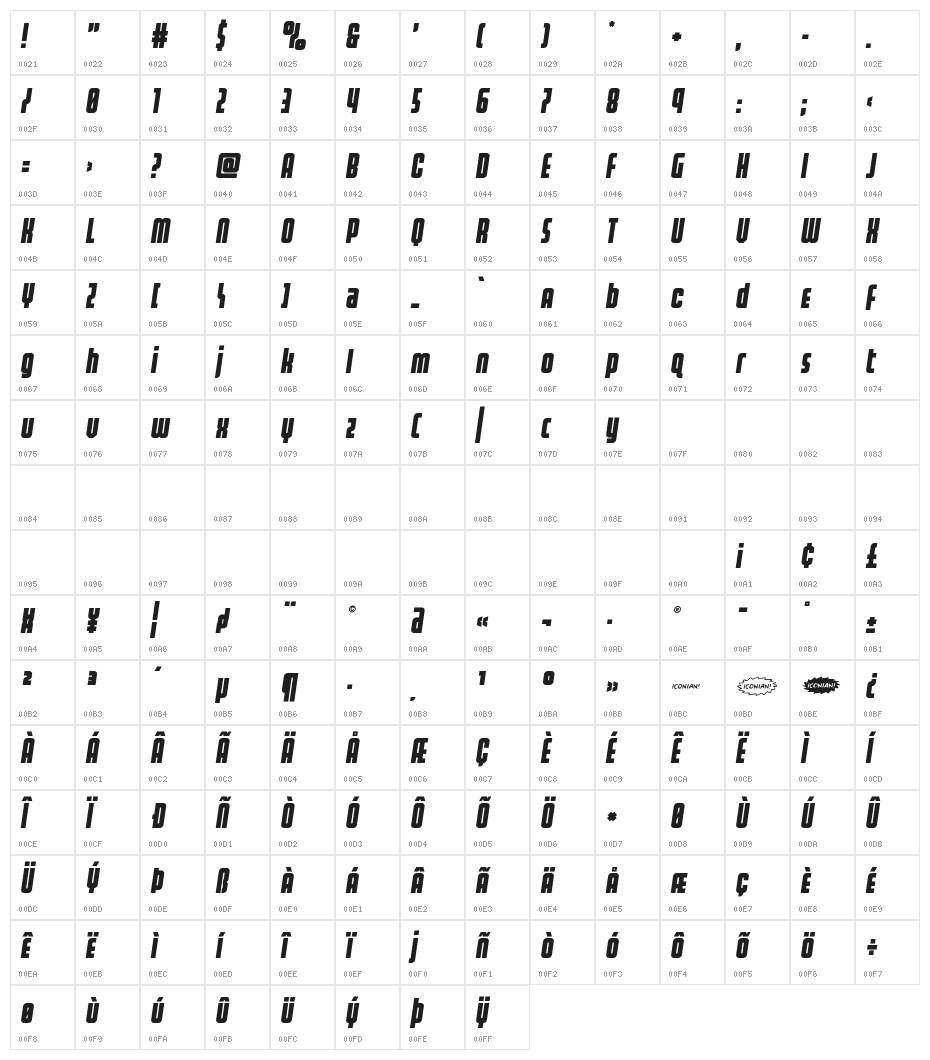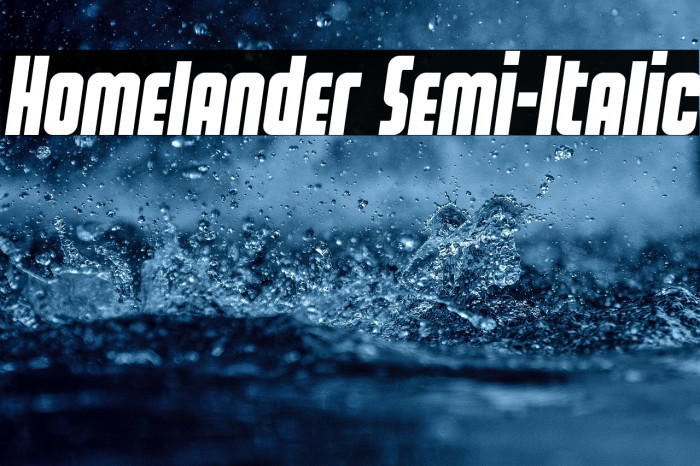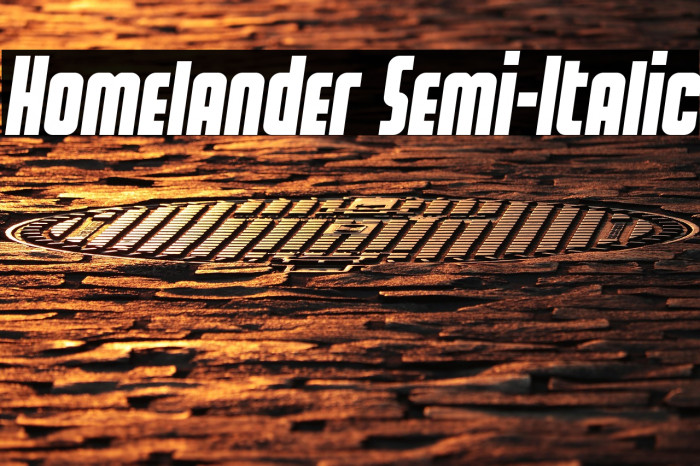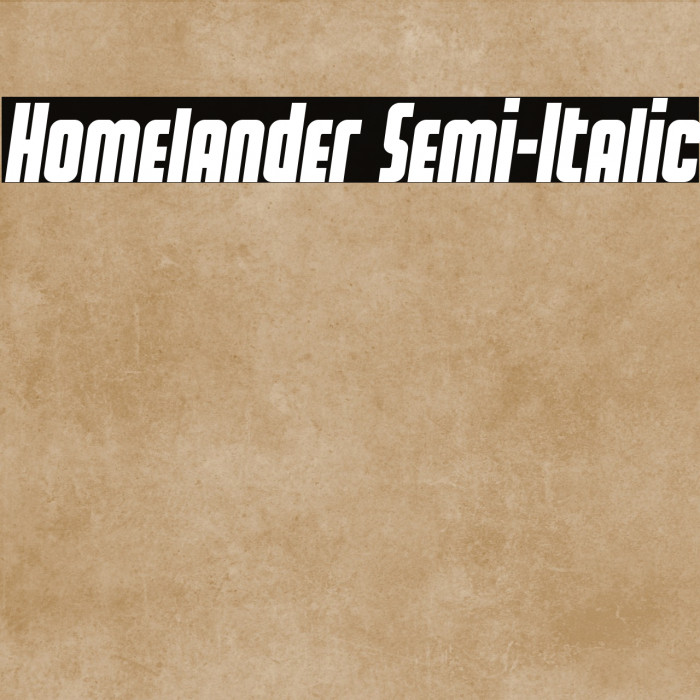
Homelander Semi-Italic Font
Homelander Semi-Italic Description
This font features a bold and dynamic style with a semi-italic slant, giving it a sense of movement and energy. The characters are thick and robust, making them highly legible and impactful. The uppercase and lowercase letters maintain a consistent weight, while the numbers and special characters are designed to match the overall boldness. The font's structure is slightly condensed, which enhances its strong and assertive appearance. It is well-suited for projects that require a modern and powerful aesthetic.
| Proposed Projects | Ideal for sports branding, action movie posters, dynamic logos, and attention-grabbing headlines. |